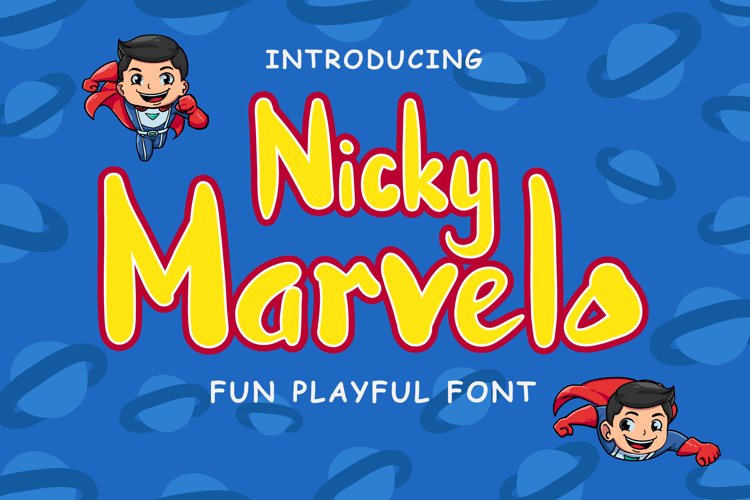
Introducing Nicky Marvelo is Fun Playful Font. Nicky Marvelo Font made with digital brush pen stroke that making this font look authentic. perfect for festival, merry Christmas day, title, quotes, advising, packaging, etc.this font is available Uppercase, Lowercase, Numeral, punctuation, ligature and unique swash